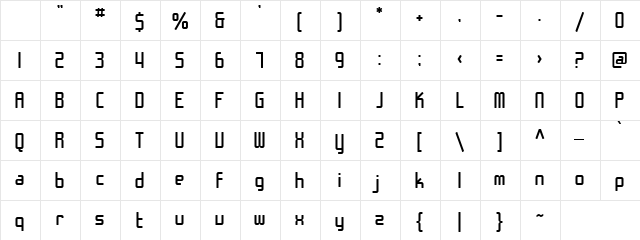
Littre Nan 2 Regular
Design Context for Littre Nan 2 Typeface
Littre Nan 2 offers clean, dependable letterforms without strong stylistic allegiance, making it a practical choice for designers who need flexibility.